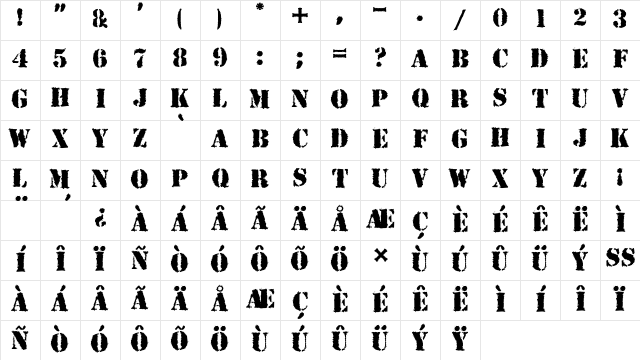
Due Date Regular
Due Date Family
Design Context for Due Date
Due Date is a composed and adaptable typeface that performs quietly and consistently across a wide range of design contexts.